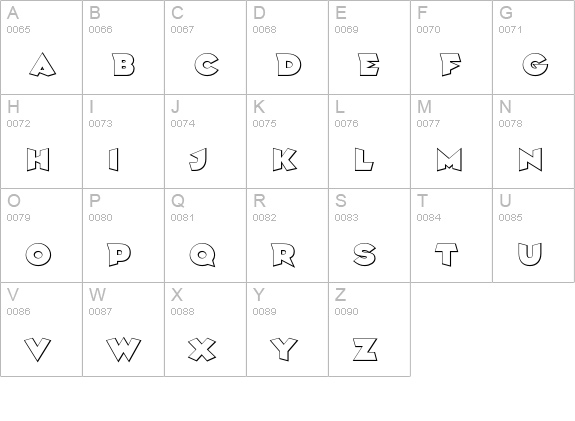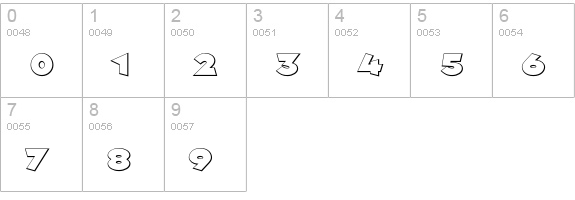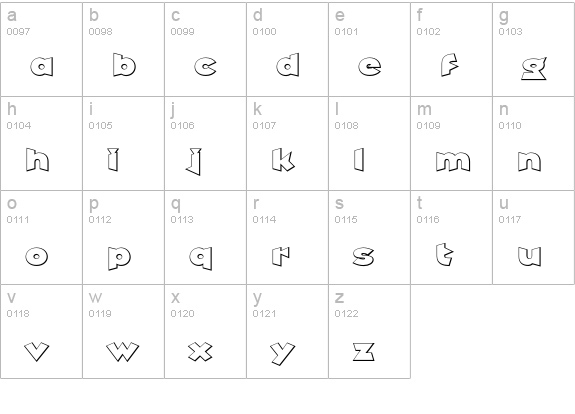
The Griffin-Shaded font is a stunning display typeface that exudes a sense of elegance and sophistication. Its intricate details and unique shading make it perfect for adding a touch of luxury to your designs. This versatile font is ideal for creating eye-catching headlines, logos, posters, and more. What sets Griffin-Shaded apart is its seamless blend of classic and contemporary elements, making it a truly timeless choice for any project. Whether you're designing a wedding invitation or a high-end brand identity, this font will surely elevate your work to the next level. Best of all, Griffin-Shaded is available for free download at FontsMarket.com, allowing you to access this premium font without breaking the bank. Don't miss out on the opportunity to add this exquisite typeface to your collection today!